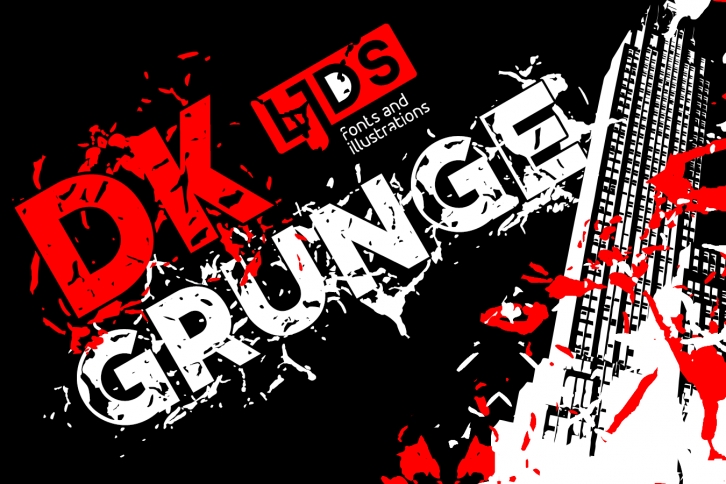
DK Grunge is a trendy and unique font with an authentic style. It was designed by LJ Design Studios and it's a great choice for creative people who need such a font. It was released on December 18, 2018 and the file size is 16.16 MB. DK Grunge will add an organic vibe to any design idea!